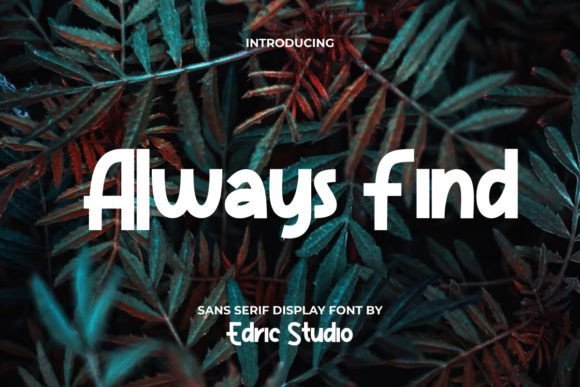
Unlock the Perfect Design with Always Find Font
Have you ever stared at a blank canvas, struggling to find the perfect font to bring your creative vision to life? We’ve all been there – the blank page staring back at us, begging for a spark of inspiration. And then, like a ray of sunshine, you stumble upon a font that changes everything. For designers, the thrill of the hunt for the perfect font is a never-ending quest. And now, we’re excited to introduce you to Always Find Font, a playful sans serif font designed by EdricStudio that’s sure to become your new go-to.
This charming font comes with two styles: Regular and Italic, each with a bold twist that adds an extra layer of character to your designs. Whether you’re working on a comic, branding a new business, or creating marketing materials for a fast food restaurant, Always Find Font has got you covered.
Always Find Font Key Features
Always Find Font Review